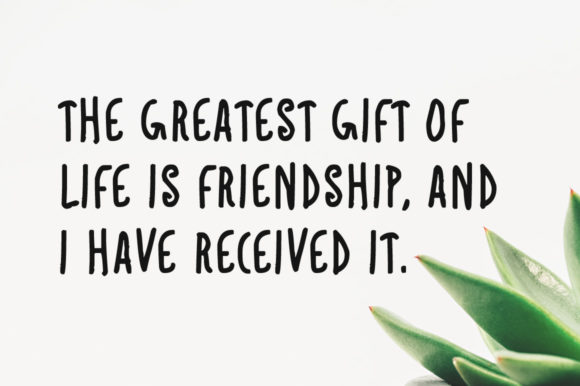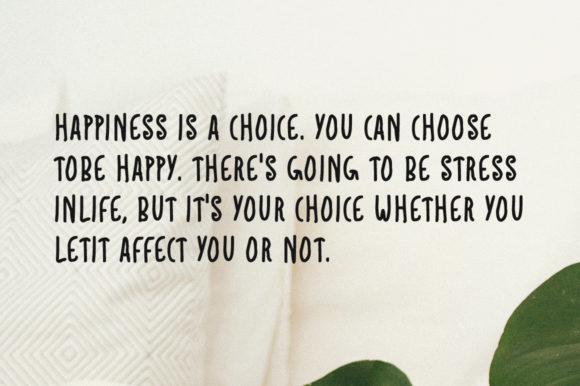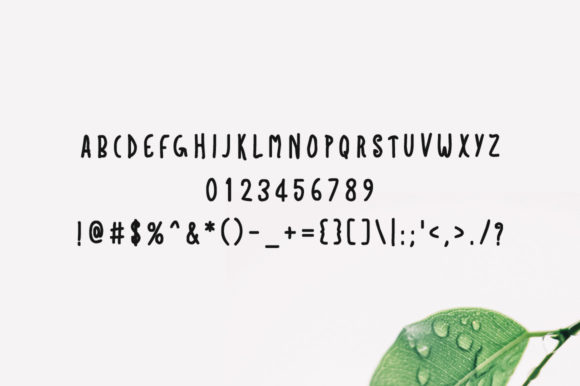
Where Creativity Meets Authenticity: Introducing Be the Change Font
Have you ever found yourself scribbling down ideas in a notebook, only to realize that the messy handwriting is actually a reflection of your unique personality? That’s exactly the kind of creative moment that inspired the Be the Change Font – a charming, handwritten font that captures the essence of authenticity.
As a designer, you’re always on the lookout for the perfect font to convey your message. Be the Change Font is more than just a font – it’s an invitation to stand out from the crowd and express yourself in a way that’s truly yours. With its playful, hand-drawn feel, this font is perfect for designers who want to add a touch of whimsy to their projects.
Key Features of “Be the Change Font”
- Font Family: A unique, hand-designed sans-serif font with a modern and friendly feel.
- Unique Characteristics: Features a distinctive, hand-crafted feel with subtle variations in letterforms, giving it a human touch.
Be the Change Font Review
As a designer, I was excited to dive into the “Be the Change Font” and see how it could elevate my designs. Here’s my honest review.
- The font’s message of empowerment and positive change resonates with me, making it perfect for social impact projects.
- The clean and modern design gives it a professional feel that’s suitable for a wide range of applications.
- The font family includes a variety of weights, making it easy to customize and style to suit different needs.
- The font’s uniqueness can be both a blessing and a curse. While it stands out, it may not be the best fit for projects that require a more subtle or traditional approach.
- The font’s versatility is limited by its lack of italics and condensed variants, which may restrict its use in certain contexts.
Overall, I’m impressed with the “Be the Change Font” and its potential to make a statement in designs. While it may have some limitations, its clean design and empowering message make it a great choice for projects that align with its values.
Use Be the Change Font to add a touch of personality to your designs.
Use it to emphasize key points in your text.
Be the Change Font is ideal for:
Social media graphics
Posters and flyers
Business cards and resumes
Blog posts and articles